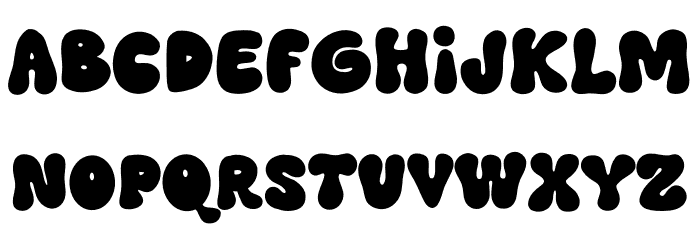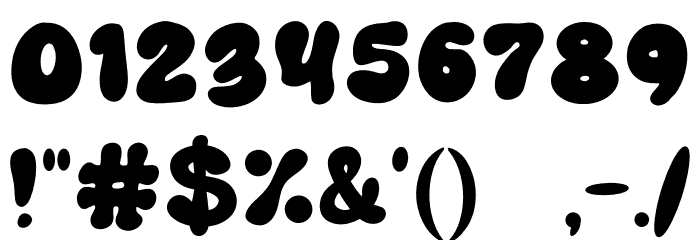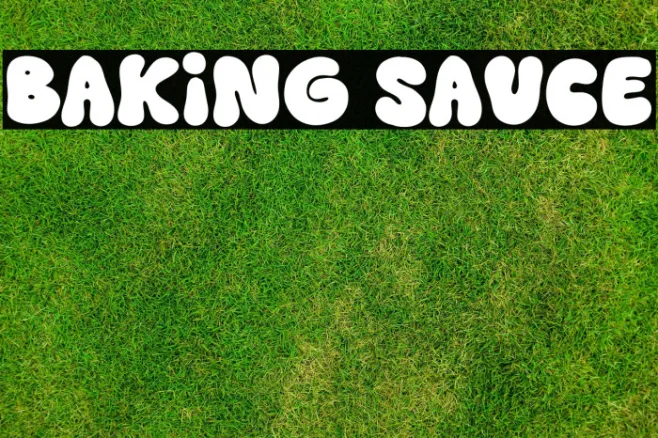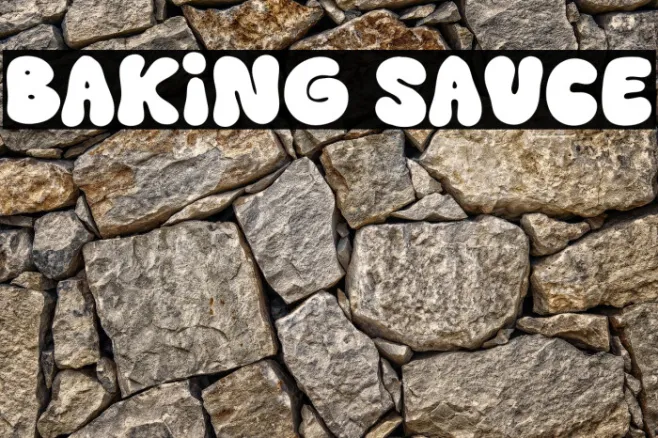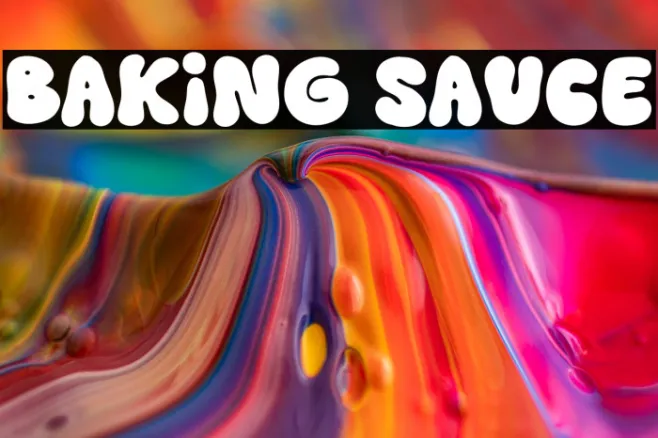
BAKING SAUCE Font
This playful and bold typeface features rounded, bubbly characters that exude a sense of fun and whimsy. The letters are thick and have a soft, inflated appearance, making them stand out with a friendly and approachable vibe. The font includes both uppercase and lowercase letters, as well as numbers and a variety of special characters. Its unique style is characterized by its heavy weight and rounded edges, which give it a distinctive and memorable look. The overall design is consistent across all characters, ensuring a cohesive appearance in any text.
A bold, rounded typeface with a playful and whimsical style.
- Font: BAKING SAUCE
- Proposed Projects: Ideal for children's books, playful branding, party invitations, and any project needing a fun and lively touch.
- Overall Style: Playful, Whimsical